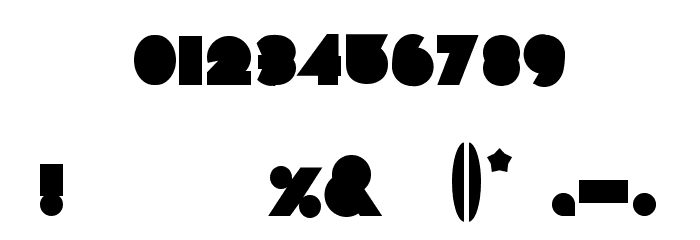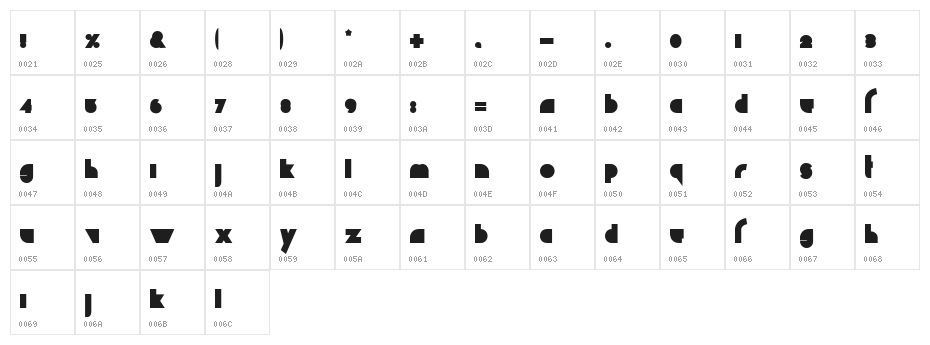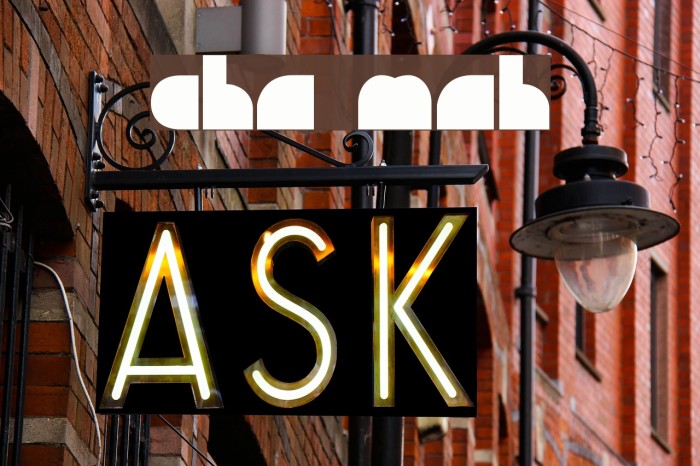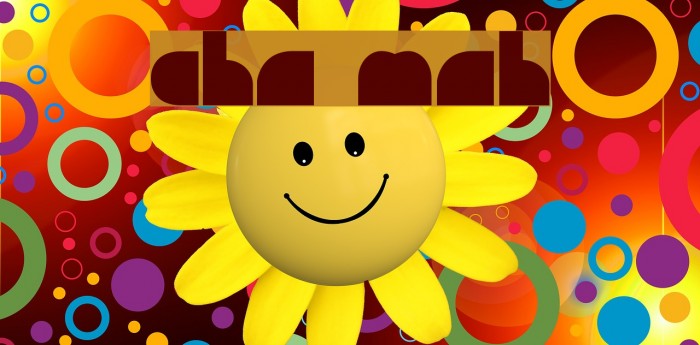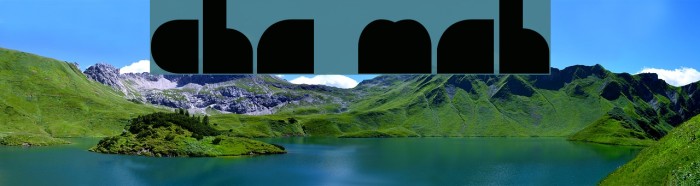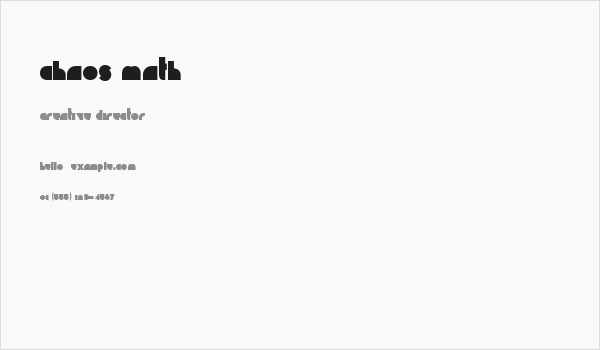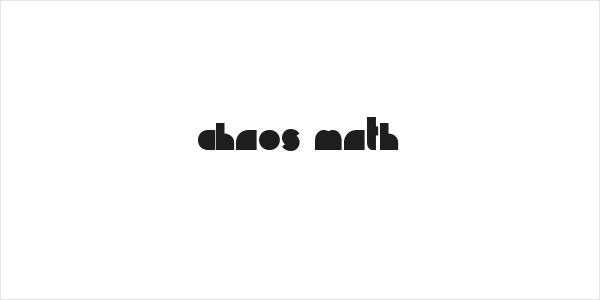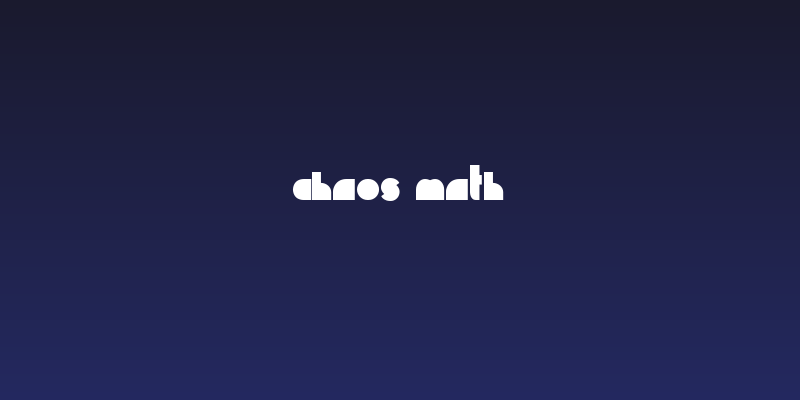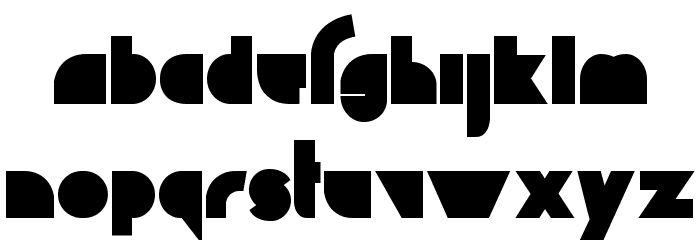
Chaos Math Font
Chaos Math Description
This font exhibits a bold and geometric style, characterized by its heavy weight and distinct angular shapes. The letters are constructed with a combination of straight lines and curves, creating a modern and futuristic appearance. The uppercase and lowercase letters maintain a consistent design, with unique features such as sharp angles and thick strokes. The numbers and special characters follow the same bold and geometric theme, ensuring uniformity across all characters. The font's strong visual impact makes it suitable for attention-grabbing designs.
| Proposed Projects | Ideal for posters, logos, branding, and any design requiring a strong visual impact. |